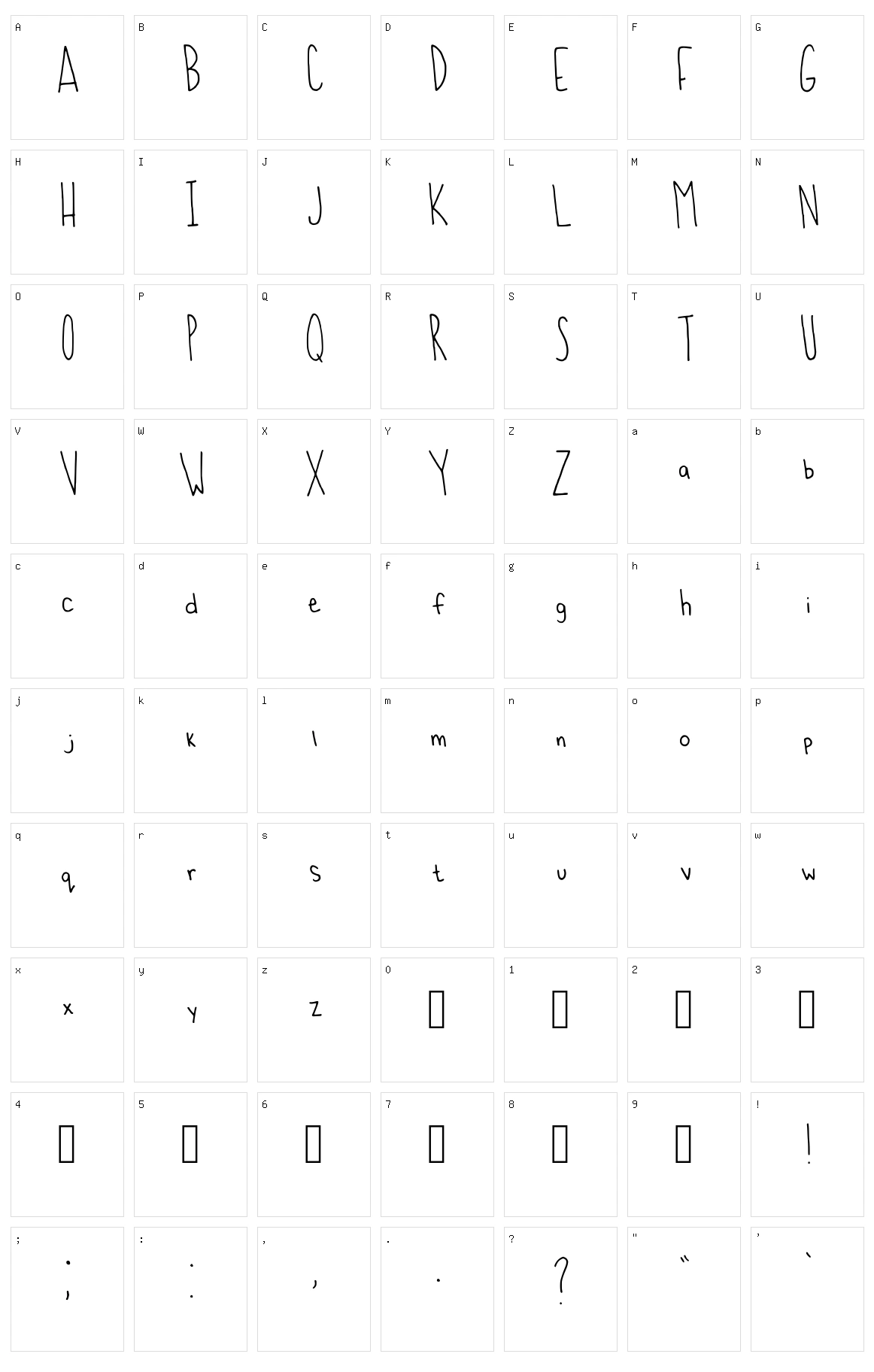
The free font BMauroArt is carefully designed by B Mauro, showcasing a thoughtful balance of creativity and usability and falls under the Script font style. When you download the ZIP file, it contains only 9.03 KB of font files, making it lightweight and quick to download. Please review the license details below to understand permitted usage and distribution rights. If license information is not available, we recommend using this font for personal projects only or contacting the author directly for commercial usage permissions.